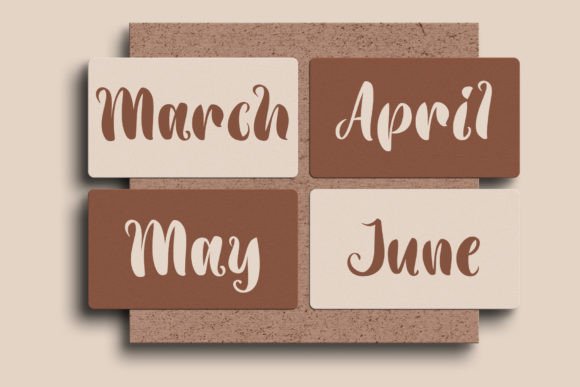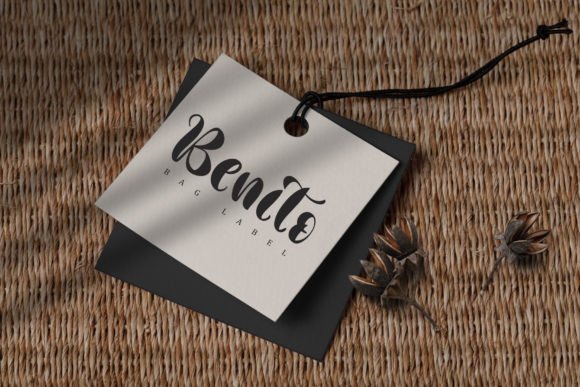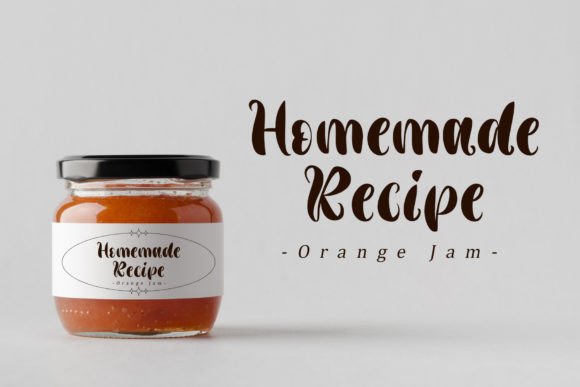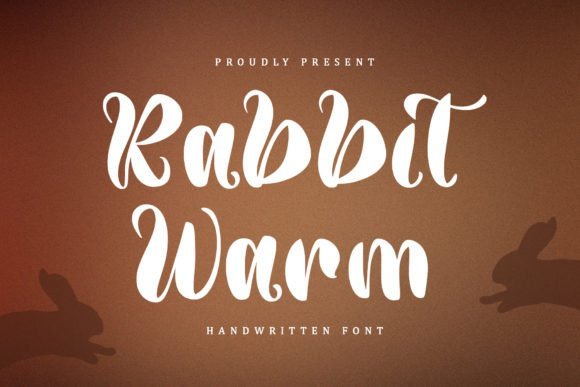
Introduction to Rabbit Warm Font
Rabbit Warm is a modern and elegant font that radiates beauty and charm.
With its flowing lines and delicate details, this font is perfect for adding a touch of romance to any design Let your creativity soar with Rabbit Warm and create designs that capture the essence of love and beauty.
Key Features of Rabbit Warm Font
Why Choose Rabbit Warm Font?
Rabbit Warm Font offers exceptional quality and versatility, making it a valuable addition to your design toolkit. Whether you’re creating for personal projects or commercial use, Rabbit Warm Font delivers professional results.